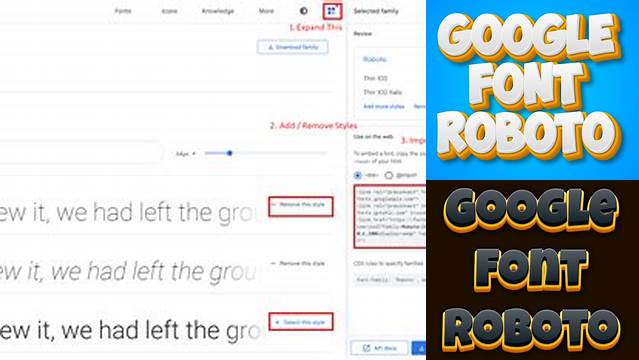
Google Fonts Roboto: HTML Link Guide For Stunning Typography
Introduction to Google Fonts and Roboto
Hey guys! Ever wondered how some websites just have that perfect font that makes everything look so sleek and readable? Chances are, they're using Google Fonts! And one of the most popular fonts out there is Roboto. In this guide, we’re going to dive deep into how you can use Roboto on your website using HTML links. We'll cover everything from the basics to more advanced tips, ensuring your site looks fantastic. Using Google Fonts, especially Roboto, can dramatically improve your website's typography, making it more appealing and user-friendly. The right font can enhance readability, convey your brand's personality, and keep visitors engaged. Roboto, with its clean and modern design, is an excellent choice for a wide range of projects, from corporate websites to personal blogs. This comprehensive guide will walk you through every step of incorporating Roboto into your HTML, ensuring a smooth and professional look for your online presence. So, let's get started and explore the world of Google Fonts and Roboto!
Why Use Roboto Font?
Now, let's talk about Roboto. Why is it so popular? Well, Roboto is a sans-serif font that was designed by Christian Robertson for Google. It’s known for its clean, geometric lines and its incredible readability. Whether you’re using it for headlines or body text, Roboto looks great on screens of all sizes. Roboto's versatility is one of its greatest strengths. It's equally effective for headings and body text, making it a reliable choice for entire website designs. Its clean, modern aesthetic makes it suitable for a wide range of industries, from technology and finance to creative and personal projects. Roboto's geometric structure ensures clarity and legibility, even at smaller sizes, which is crucial for maintaining a professional and user-friendly website. Moreover, Roboto comes in a variety of weights and styles, allowing you to create visual hierarchy and add depth to your typography. From thin and light to bold and black, there's a Roboto style to fit every design need. By choosing Roboto, you're opting for a font that is both timeless and contemporary, ensuring your website looks polished and professional for years to come. So, if you're looking for a font that combines style, readability, and versatility, Roboto is definitely worth considering.
On the Roboto page, you’ll see a bunch of options for different styles and weights. Think of weights as the thickness of the font (e.g., 300 for light, 400 for regular, 700 for bold). Styles include things like italic. Choose the ones that fit your design. Selecting the right styles and weights for your font is crucial for creating a visually appealing and readable website. Roboto offers a wide range of options, from light and thin weights to bold and extra-bold, allowing you to create visual hierarchy and add emphasis where needed. Consider the overall tone and style of your website when choosing your font weights. For a minimalist and elegant design, lighter weights might be a good choice, while bolder weights can convey a sense of strength and importance. Italic styles can be used to highlight specific words or phrases, adding a touch of sophistication to your typography. When selecting styles and weights, it's also important to consider readability. Make sure that the font is easy to read at different sizes and on different devices. This may involve experimenting with different combinations of weights and styles to find the perfect balance between aesthetics and usability. By carefully choosing your styles and weights, you can create a typography that enhances your website's design and improves the overall user experience. So, take the time to explore the various options available and select the ones that best fit your project's needs.
Copying the HTML Link
Once you’ve selected your styles, Google Fonts will generate an HTML link for you. It looks something like this:
Just copy that code! This HTML link is the key to integrating Roboto into your website. It tells the browser where to find the font files hosted on Google's servers. The link includes important information about the font family (Roboto), the weights you've selected (e.g., 400 for regular and 700 for bold), and instructions on how to display the font. The rel="stylesheet"
attribute indicates that this link is for a stylesheet, which contains the font definitions. The preconnect
links help improve performance by establishing early connections to the Google Fonts servers. The crossorigin
attribute ensures that the font files can be loaded from a different domain. By copying this HTML link and pasting it into your website's code, you're essentially telling the browser to download and use Roboto for your text elements. This simple step is all it takes to transform your website's typography and create a more visually appealing and professional design. So, don't skip this step – copy the HTML link and get ready to see Roboto in action on your website!